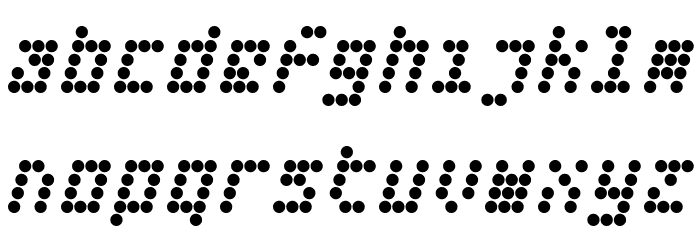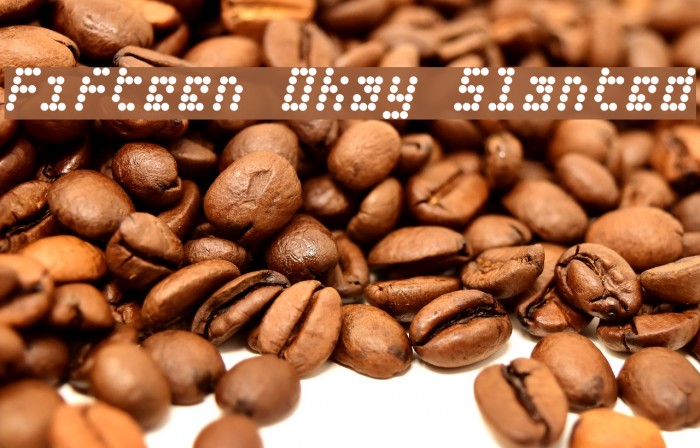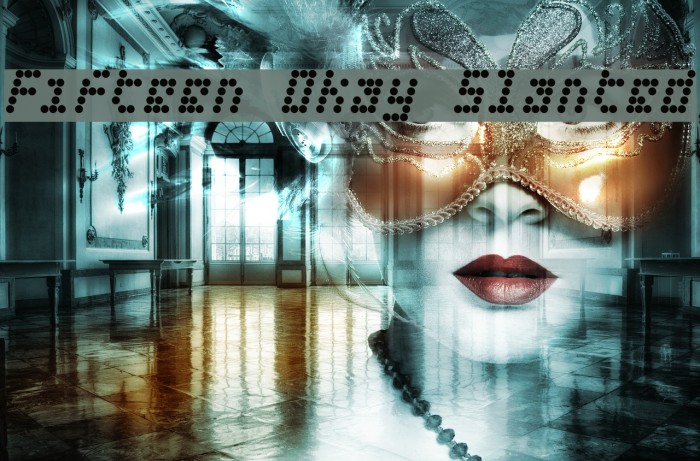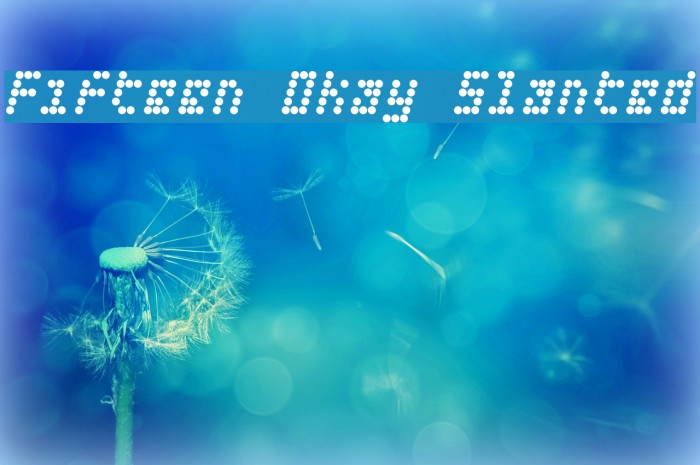
Fifteen Okay Slanted Font
This font features a unique dot matrix style, where each character is composed of a series of evenly spaced dots. The design is slanted, giving it a dynamic and modern appearance. The uppercase and lowercase letters maintain consistent dot patterns, creating a cohesive look across the alphabet. Numbers and special characters are also included, following the same dotted style. The font's playful and digital aesthetic makes it stand out, ideal for projects that require a futuristic or tech-inspired feel.
A slanted dot matrix font with a modern, digital aesthetic.
- Proposed Projects: Ideal for digital displays, tech-themed posters, modern art projects, and creative branding.
- Use Case: Headlines, Logos, Digital displays